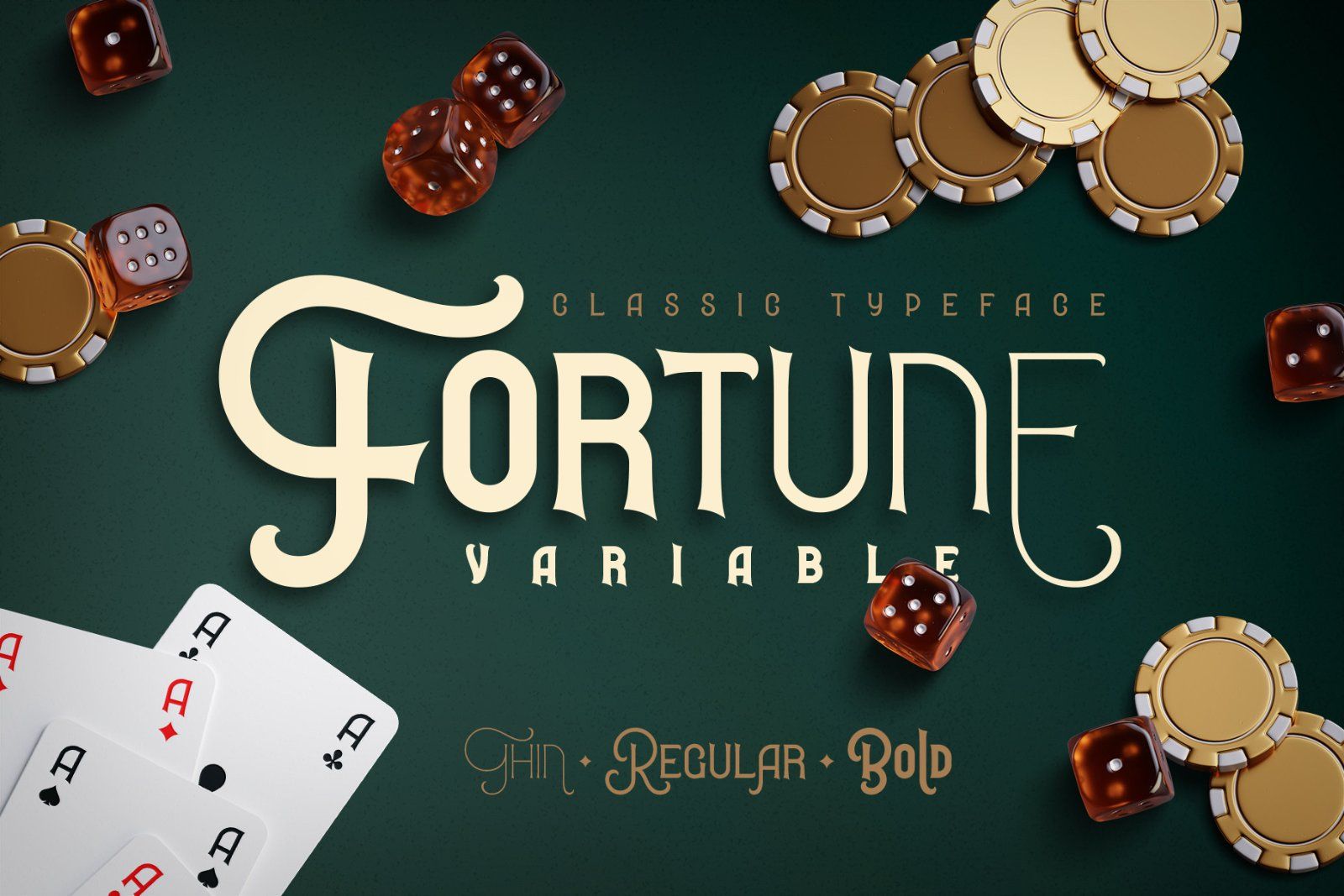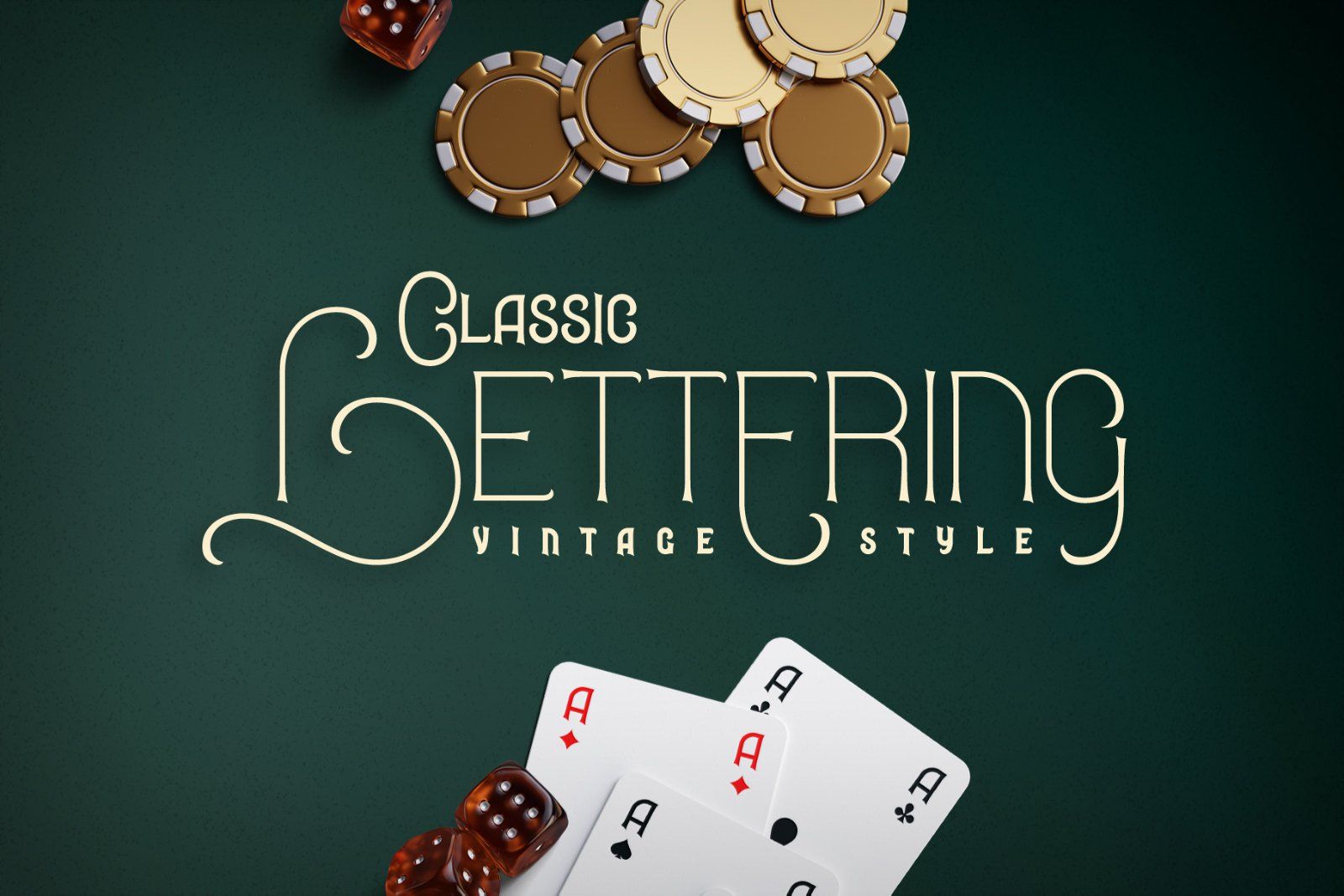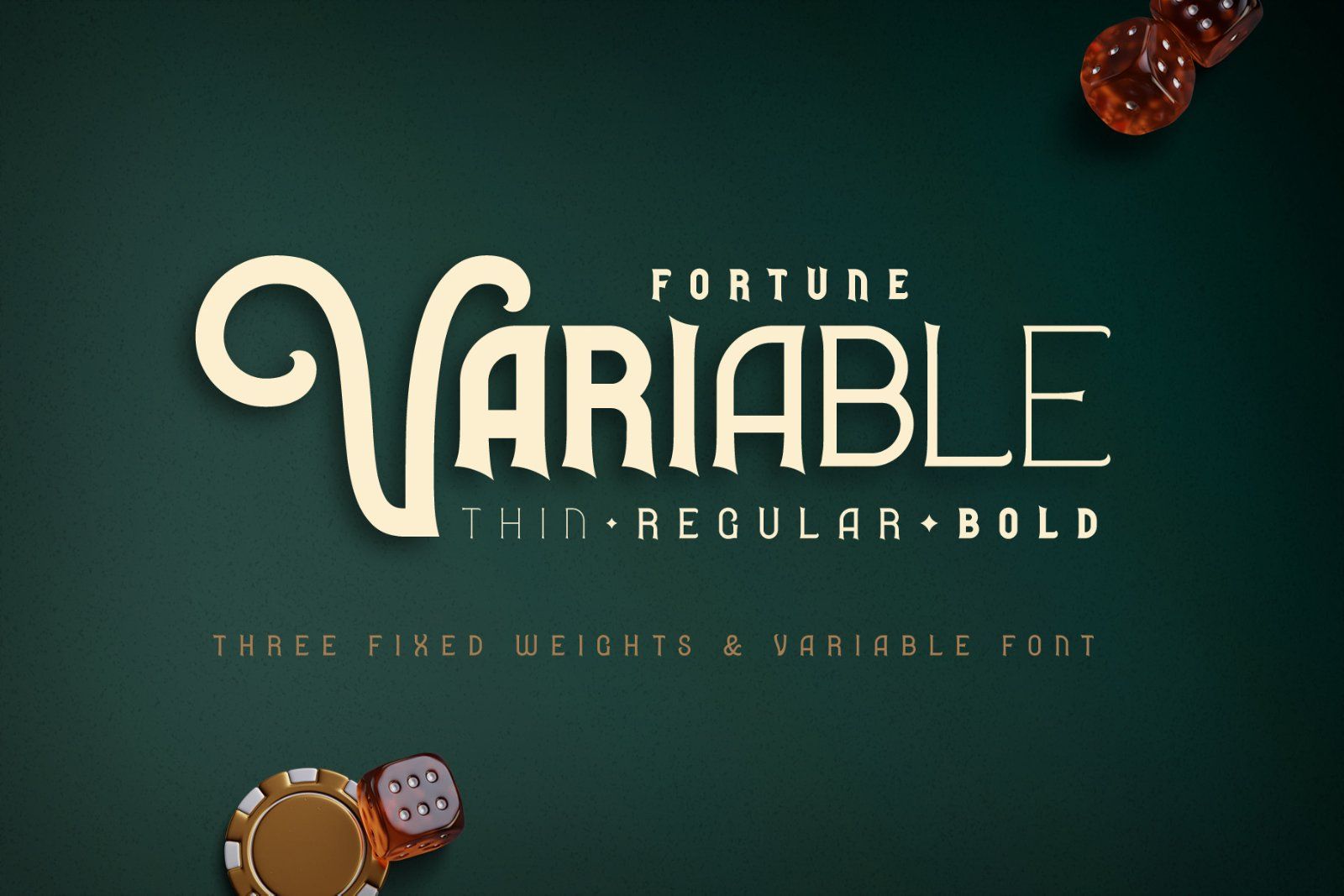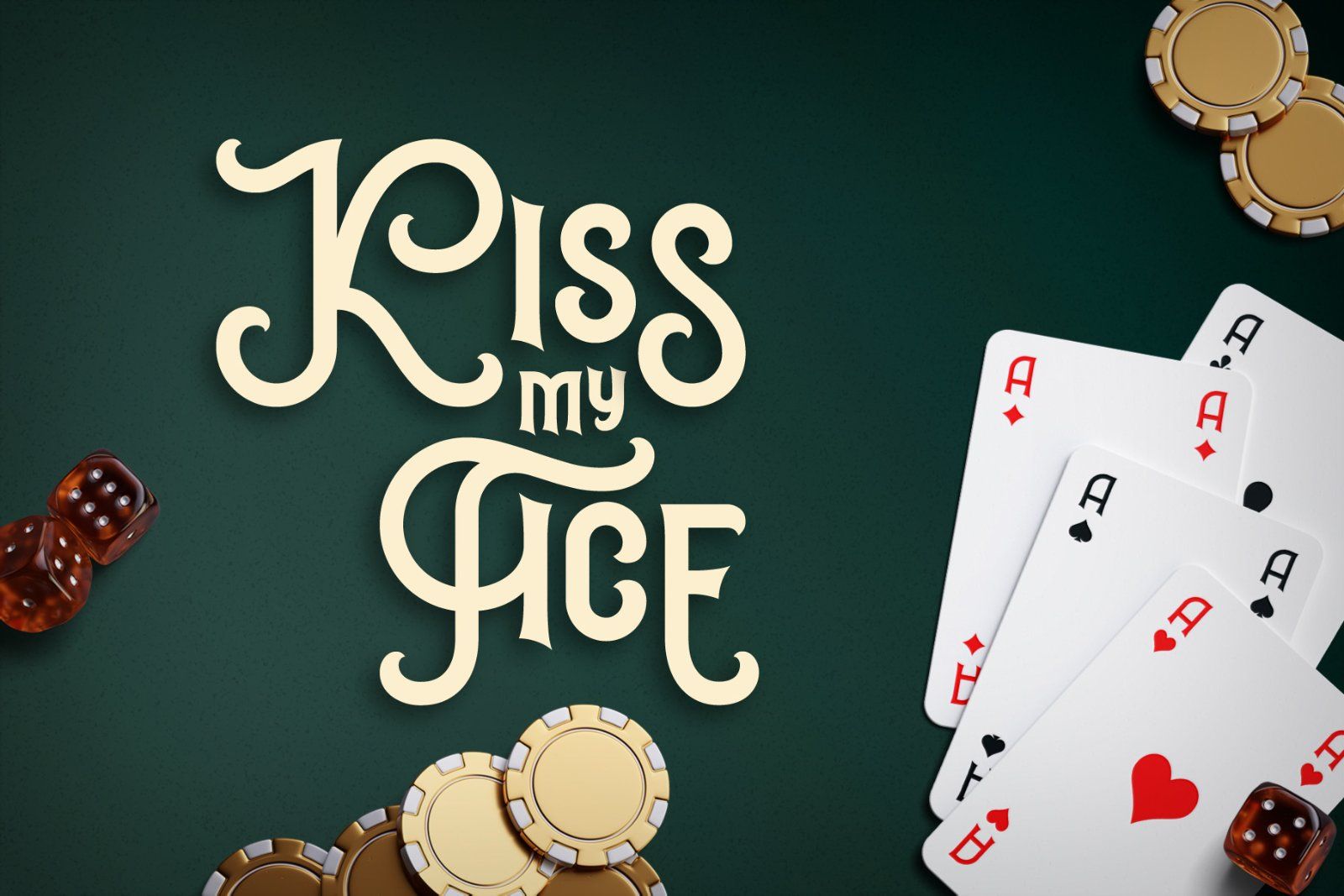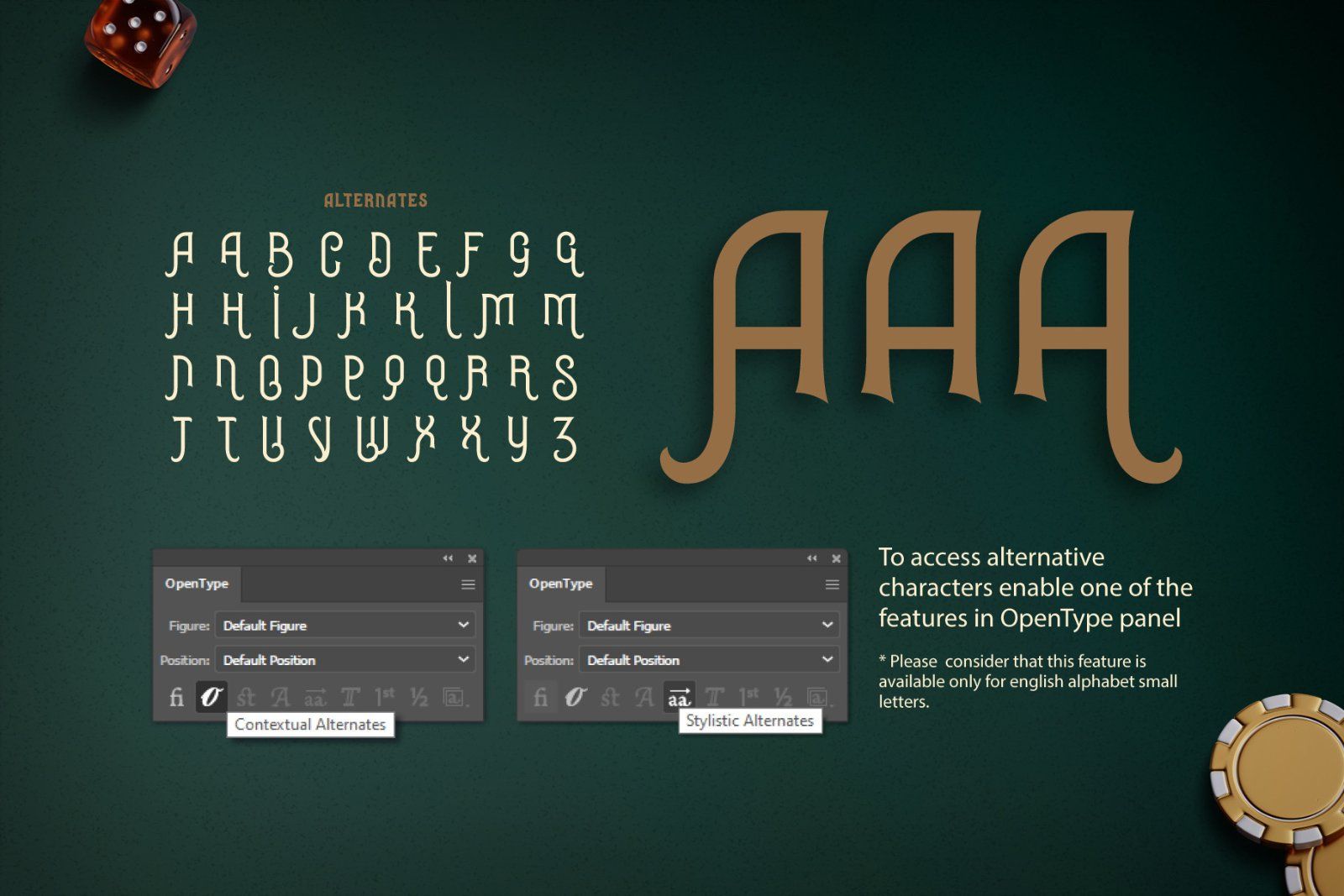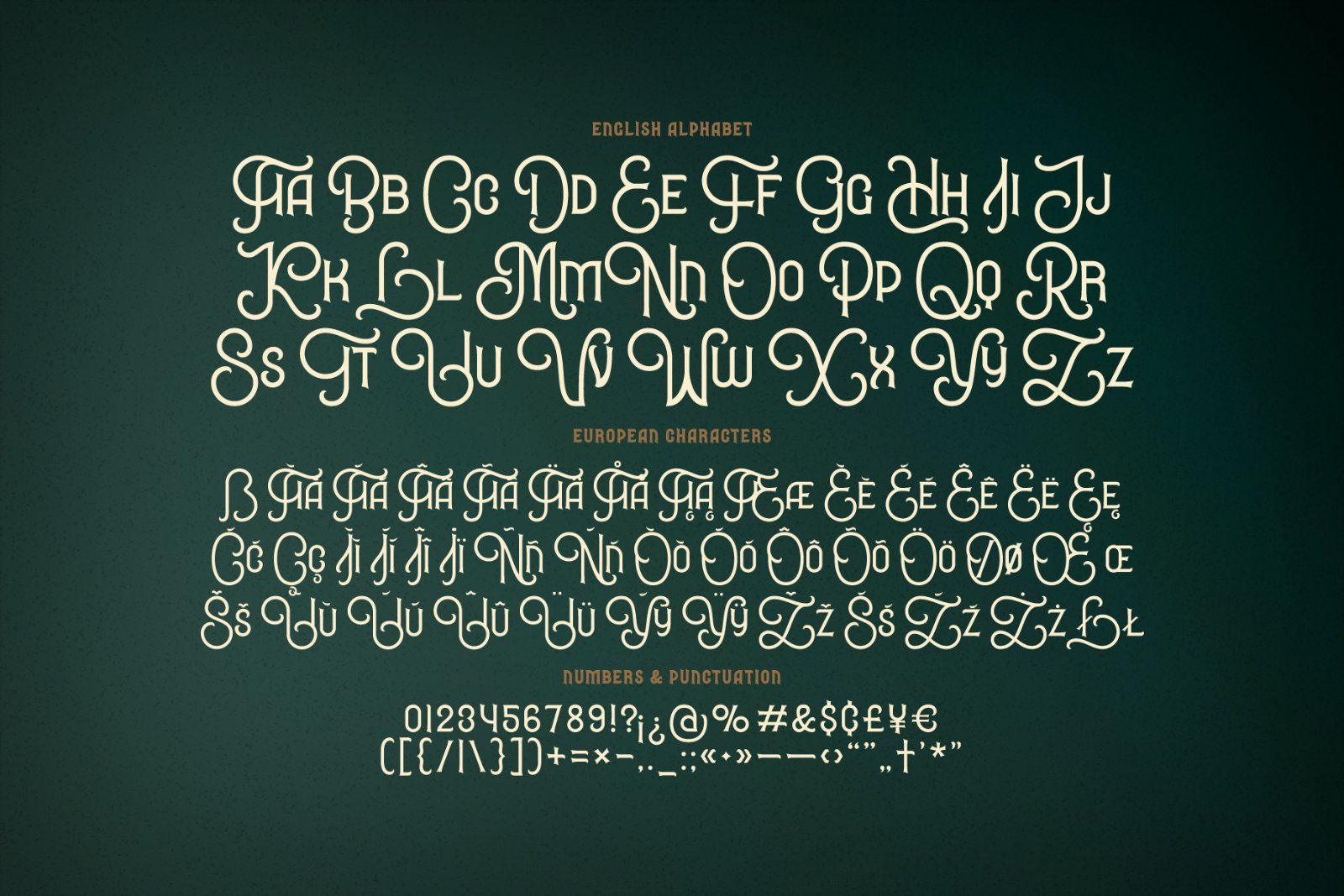
Introducing Fortune Variable Font set. This typeface has an old school look with classic western shapes. Fortune Variable Font has three predefined weights (Thin, Regular & Bold) and Variable font with flexible weight. All of the small letters has one or two alternates with bottom expanded shape*. Fortune Variable Font supports most of the European languages.